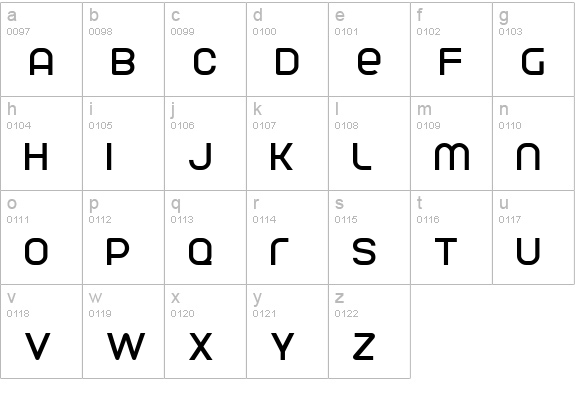
Parvoflavin Normal Font Details
Parvoflavin Normal is the standard, neutral variant in the Parvoflavin typeface family \xE2\x80\x94 well suited to general body text, paragraphs, and standard typographic work.
Parvoflavin Normal font is a striking and versatile typeface that can bring a touch of elegance to any project. Designed with meticulous attention to detail, it exudes a sense of sophistication and modernity. Featuring clean lines and a balanced letterform, Parvoflavin Normal font is perfect for both headlines and body text, making it a go-to choice for designers and typographers alike. Its legibility ensures that your message will be conveyed clearly and effectively. What sets Parvoflavin Normal font apart is its unique ability to adapt to various design styles. Whether you're working on a minimalist website, a sleek brochure, or a high-end branding project, this font seamlessly blends in with any aesthetic. And the best part? Parvoflavin Normal font is absolutely free! Yes, you read that right. It is freely available to download at FontsMarket.com. This means that you can enhance your designs without breaking the bank. It's a win-win situation! So why wait? Take advantage of the elegance and versatility that Parvoflavin Normal font has to offer. Download it today from FontsMarket.com and elevate your design projects to new heights.